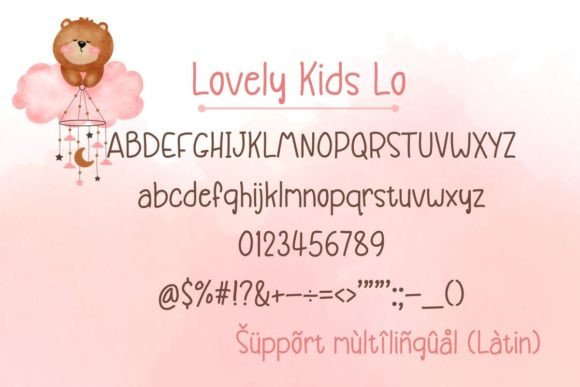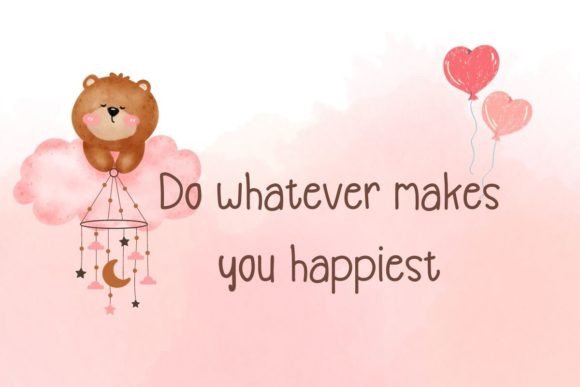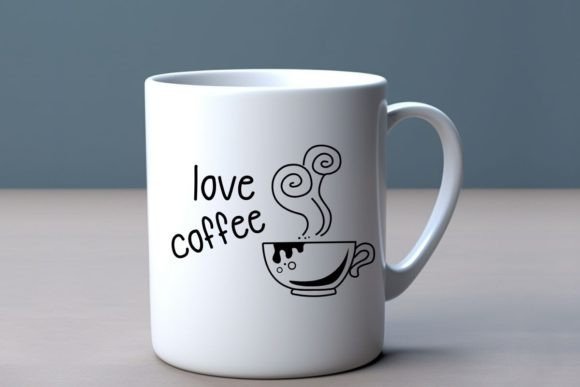
Introduction to Lovely Kids Lo Font
Have you ever been working on a creative project and suddenly, the perfect font pops into your mind, elevating your entire design to the next level? That’s exactly what happens when you discover the Lovely Kids Lo Font. This adorable, playful handwritten font is a game-changer for any design project that requires a relaxed and casual vibe.
Whether you’re creating a fun diary planner, designing wedding invitations, or crafting quotes for social media, Lovely Kids Lo Font is the perfect addition to your design arsenal. Its informal style and carefree spirit make it an ideal choice for designers who want to add a personal touch to their creations.
Key Features of Lovely Kids Lo Font
- High-quality design: Enjoy a well-crafted font perfect for your design resource needs.
Honest Review: Lovely Kids Lo Font
I recently stumbled upon the Lovely Kids Lo Font and I’m excited to share my thoughts on this design resource. As a designer, I’m always on the lookout for high-quality fonts that can elevate my creative projects.
Here are the things that stood out to me:
- ✨ The design is playful and cute, making it perfect for kids’ projects or any project that needs a lighthearted touch.
- ⚠️ The font is only available in a limited number of styles, which may not be ideal for designers who need a wide range of options.
- ⚠️ The font may not be suitable for projects that require a more professional or formal tone.
Overall, I’m impressed with the Lovely Kids Lo Font. While it may have its limitations, it’s a great resource for designers who are working on creative projects that need a playful touch. I’d definitely recommend it to anyone looking for a fun and free design resource.
The Lovely Kids Lo Font is ideal for a variety of creative projects, including children’s books, educational materials, and family newsletters. Its high-quality design and transparent background make it a versatile design resource for any project.